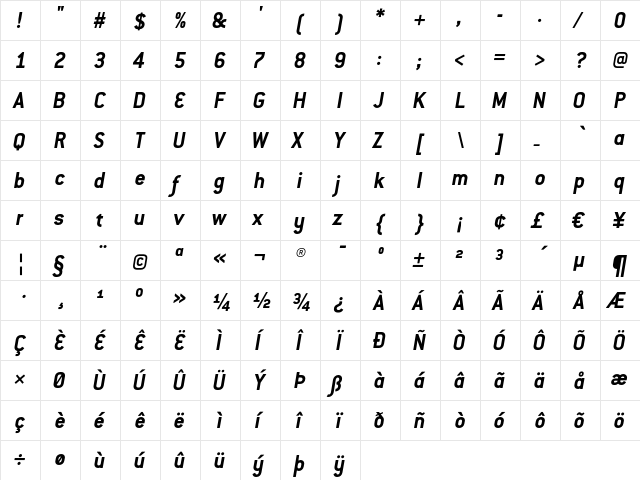
Conduit ITC Bold Italic Font Preview
Design Context for Conduit ITC Typeface
Conduit ITC takes a measured approach to typography — its balanced proportions and neutral character make it a reliable workhorse for both digital and print work. The dynamic lean of this cut emphasises speed and emphasis in any layout. Its bold stroke weight gives it real presence on the page. Its narrow stance lets it pack a punch even in space-constrained designs.
Pro Tip: Try Conduit ITC for annotation and caption copy alongside an upright companion — the contrast in angle creates a dynamic but ordered typographic system.